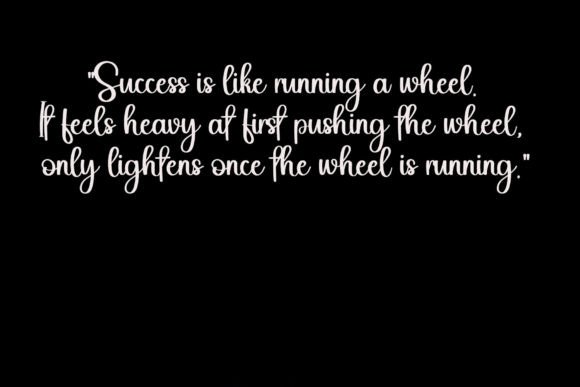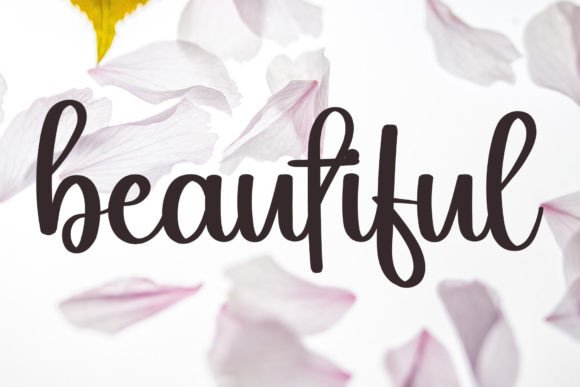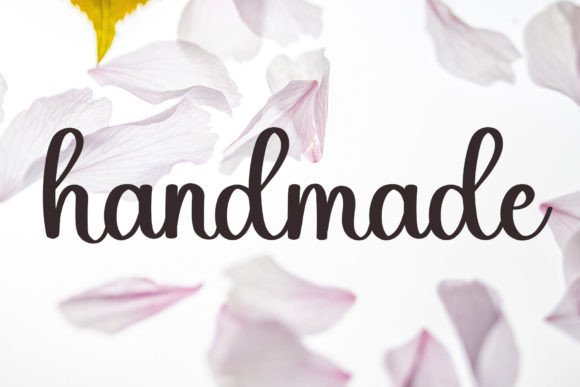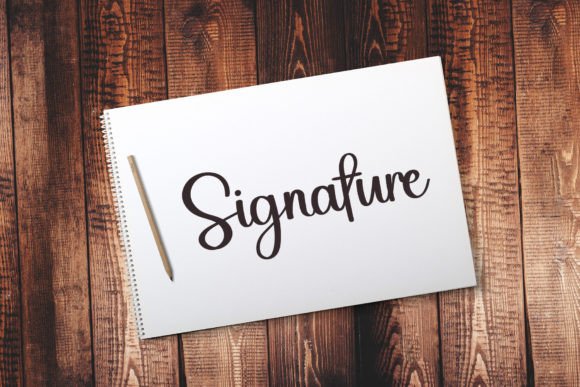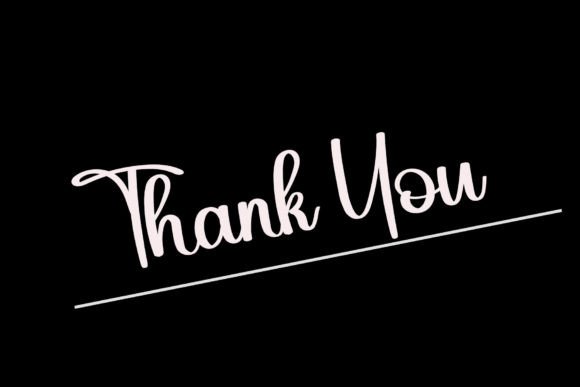
Introducing Fall Font: Elevate Your Designs with Timeless Elegance
Are you on the hunt for a font that exudes sophistication and refinement? Look no further than Fall Font, a trendy handwritten font that embodies the perfect blend of classic calligraphy and modern flair. Inspired by the timeless elegance of traditional calligraphy, Fall Font is poised to add a touch of luxury and poise to any design project you undertake.
The Essence of Fall Font
Fall Font is more than just a font – it’s an experience. With its impeccable form and contemporary atmosphere, this font is designed to elevate your designs and leave a lasting impression. Whether you’re working on a branding project, packaging design, or digital content, Fall Font is the perfect choice for those seeking to add a dash of elegance and class to their work.
Key Features of Fall Font
- Trendy and Handwritten: Fall Font boasts a trendy, handwritten aesthetic that’s perfect for designers looking to add a personal touch to their work.
- Contemporary Atmosphere: With its modern twist on classic calligraphy, Fall Font brings a fresh and contemporary feel to any design project.
- Impeccable Form: The font’s precise and elegant letterforms ensure that your designs look polished and refined.
- Versatile: Fall Font can be used across various design projects, from branding and packaging to digital content and more.
Use Cases for Fall Font
One of the standout features of Fall Font is its versatility. This font can be used to create a wide range of products, including:
- Branding and Logos: Add a touch of sophistication to your brand identity with Fall Font.
- Packaging Design: Elevate your product packaging with a font that’s both elegant and eye-catching.
- Digital Content: Use Fall Font to create stunning digital content, such as social media graphics, blog posts, and more.
- Stationery and Invitations: Add a touch of luxury to your stationery, invitations, and other printed materials.
Why Choose Fall Font?
With so many fonts available, why choose Fall Font? Here are just a few reasons why designers and crafters are falling in love with this elegant font:
- Unique and Distinctive: Fall Font offers a unique and distinctive look that’s sure to set your designs apart.
- Elegant and Refined: The font’s elegant and refined aesthetic makes it perfect for designers seeking to add a touch of sophistication to their work.
- Easy to Read: Despite its elegant appearance, Fall Font remains easy to read, making it perfect for body text and headlines.
Tips for Using Fall Font
To get the most out of Fall Font, here are a few tips to keep in mind:
- Pair with Neutral Colors: Fall Font looks stunning when paired with neutral colors, such as black, white, and gray.
- Experiment with Font Sizes: Don’t be afraid to experiment with different font sizes to create visual interest and hierarchy.
- Add Texture and Patterns: Add texture and patterns to your designs to create depth and visual interest.
Fall Font is a truly exceptional font that’s sure to elevate your designs and leave a lasting impression. With its timeless elegance, impeccable form, and contemporary atmosphere, this font is perfect for designers and crafters seeking to add a touch of sophistication to their work. Whether you’re working on a branding project, packaging design, or digital content, Fall Font is the perfect choice for those seeking to create something truly special.